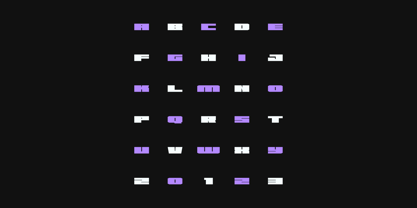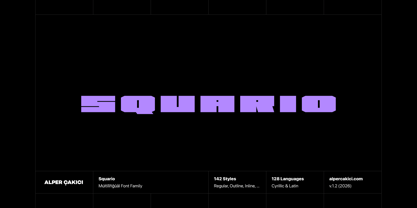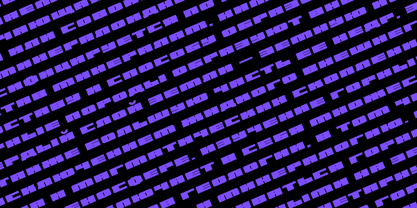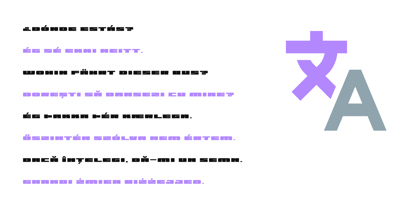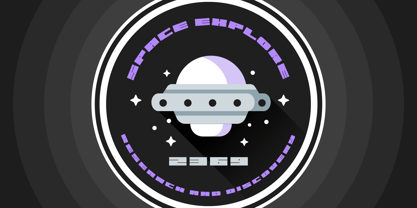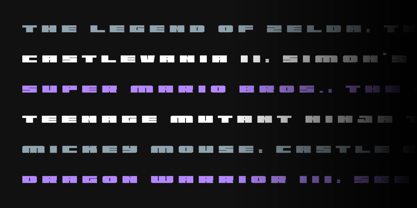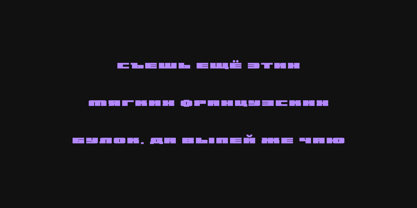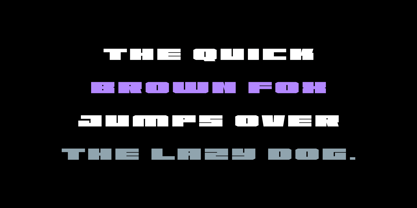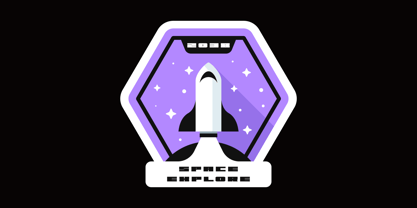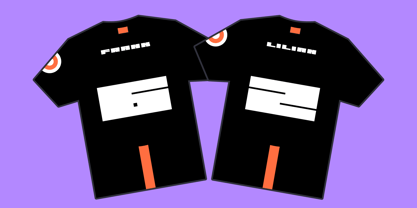
Squario
by AlperCakici
The Squario Font Family was designed by Alper Çakıcı and published by AlperCakici. Squario contains 142 styles and family package options. More about this family
Squario is a bold, wide, and technologic display typeface built for impact. Designed by Alper Çakıcı, it merges strong geometric construction with industrial character, making it ideal for futuristic branding, gaming visuals, posters, and logotypes that demand attention. With an extensive family of 142 styles, Squario offers exceptional versatility. From clean Regular and Italic to expressive textures like Brush, Chalk, Grainy, Gritty, Rusty, and Sketchy, the typeface adapts effortlessly to both polished and distressed aesthetics. The Circular and Rounded subfamilies introduce softer alternatives while maintaining the core blocky structure, expanding its usability across modern and experimental designs. Inline, Outline, Rimmed, Traced, and Shadow variations provide layered styling possibilities, perfect for creating depth, dimensional typography, and eye-catching compositions without additional graphic work. Supporting both Latin and Cyrillic scripts and covering 128 languages, Squario ensures broad international usability. With a glyph set of 468 characters, it is equipped for professional-grade typography across diverse projects. Whether you're building a futuristic brand, designing esports graphics, or crafting bold editorial headlines, Squario delivers power, flexibility, and a distinctly modern edge.